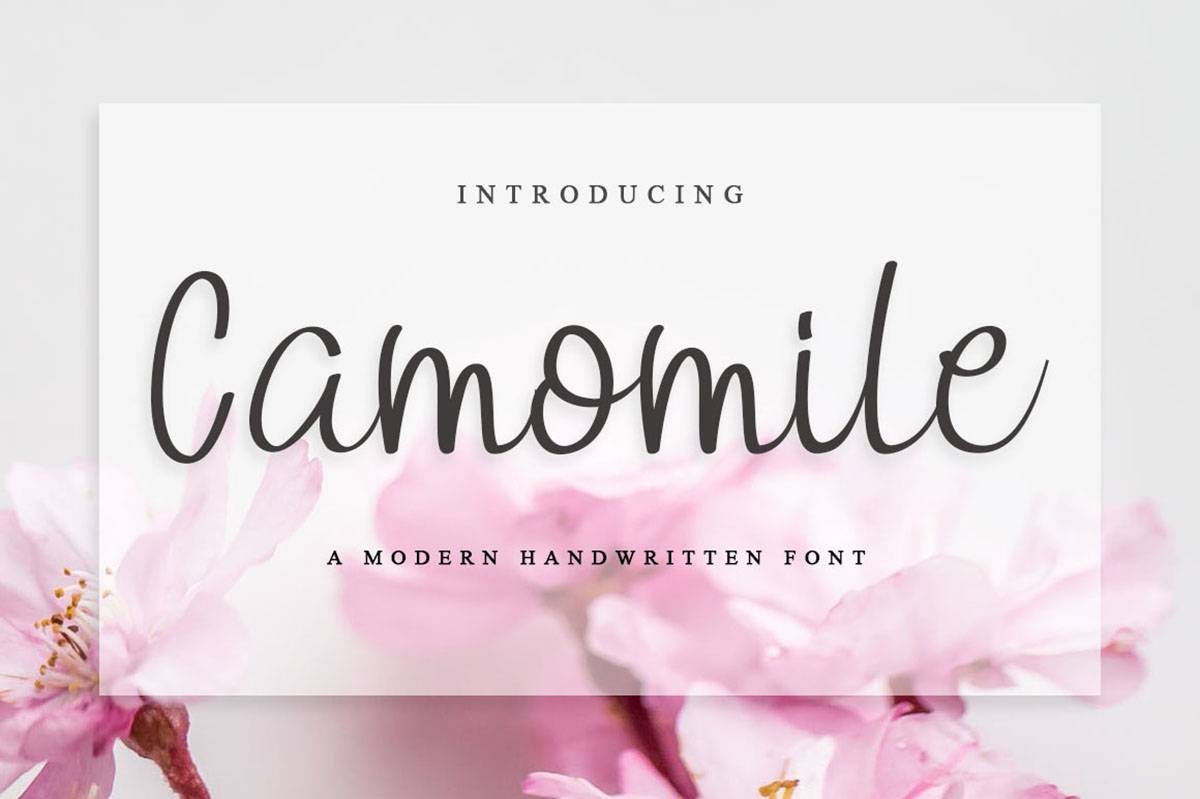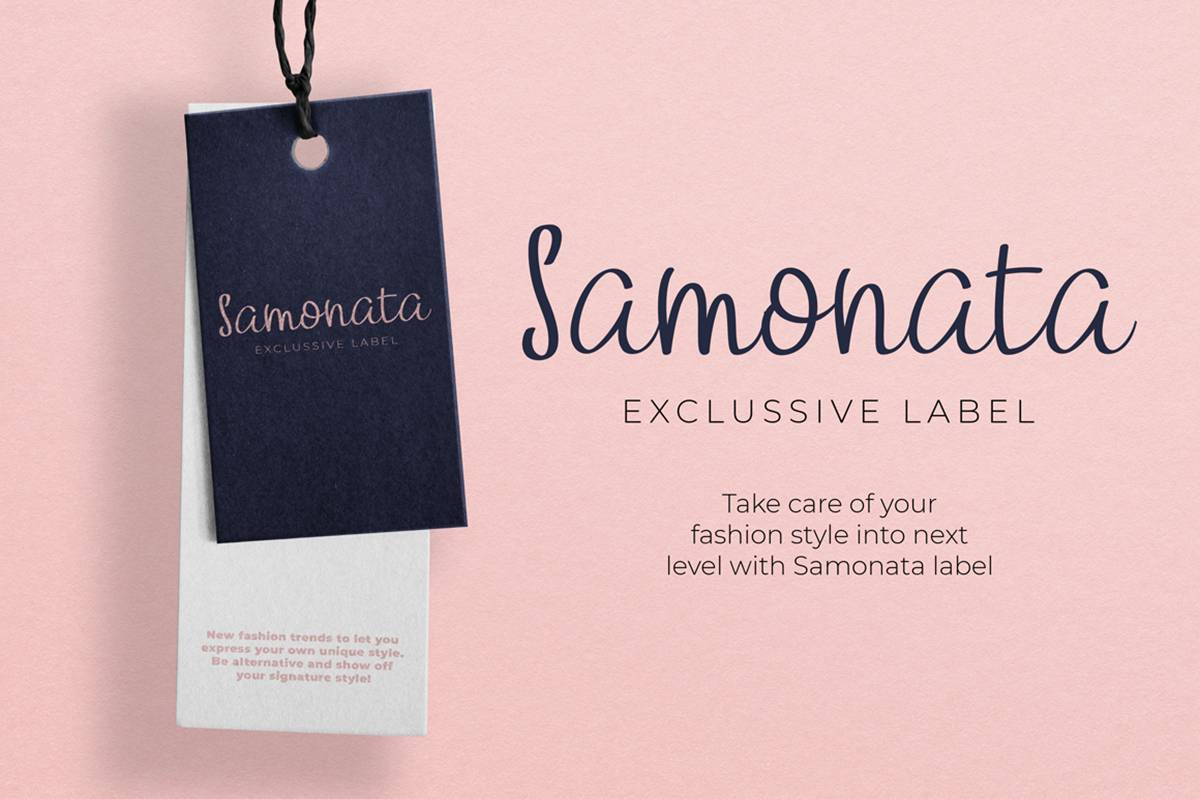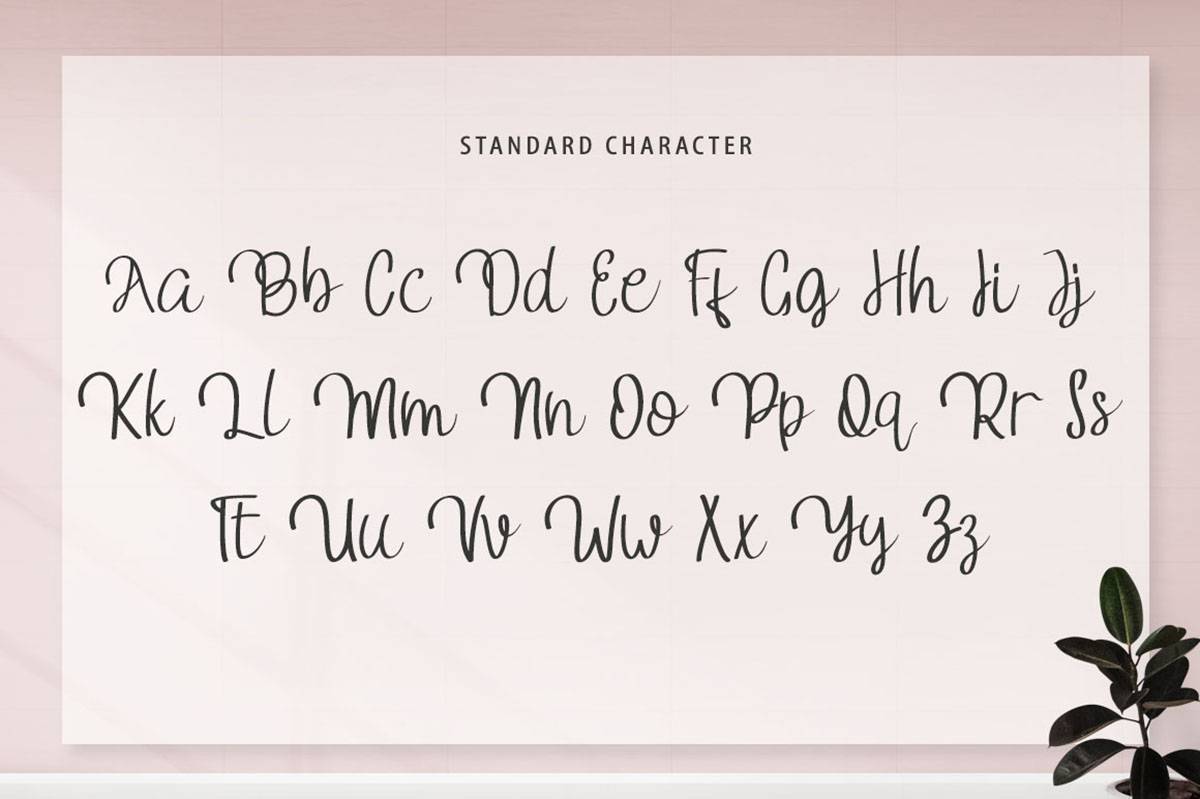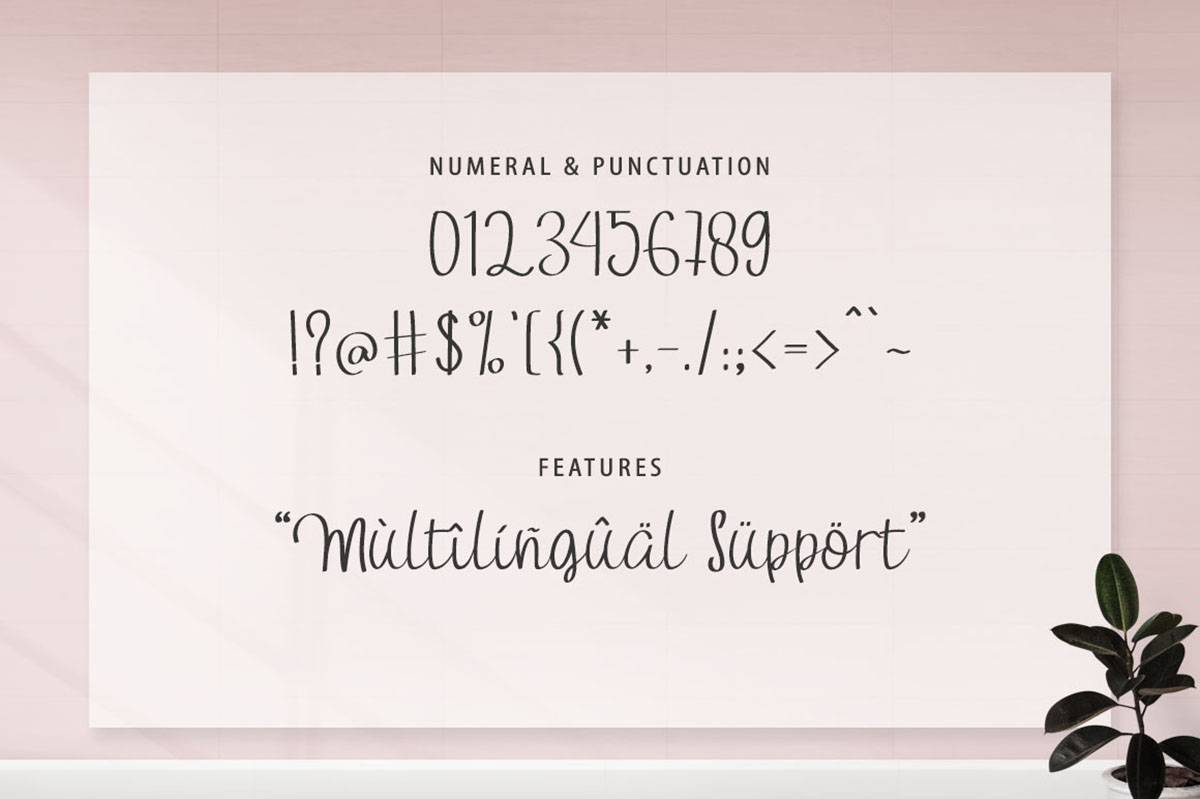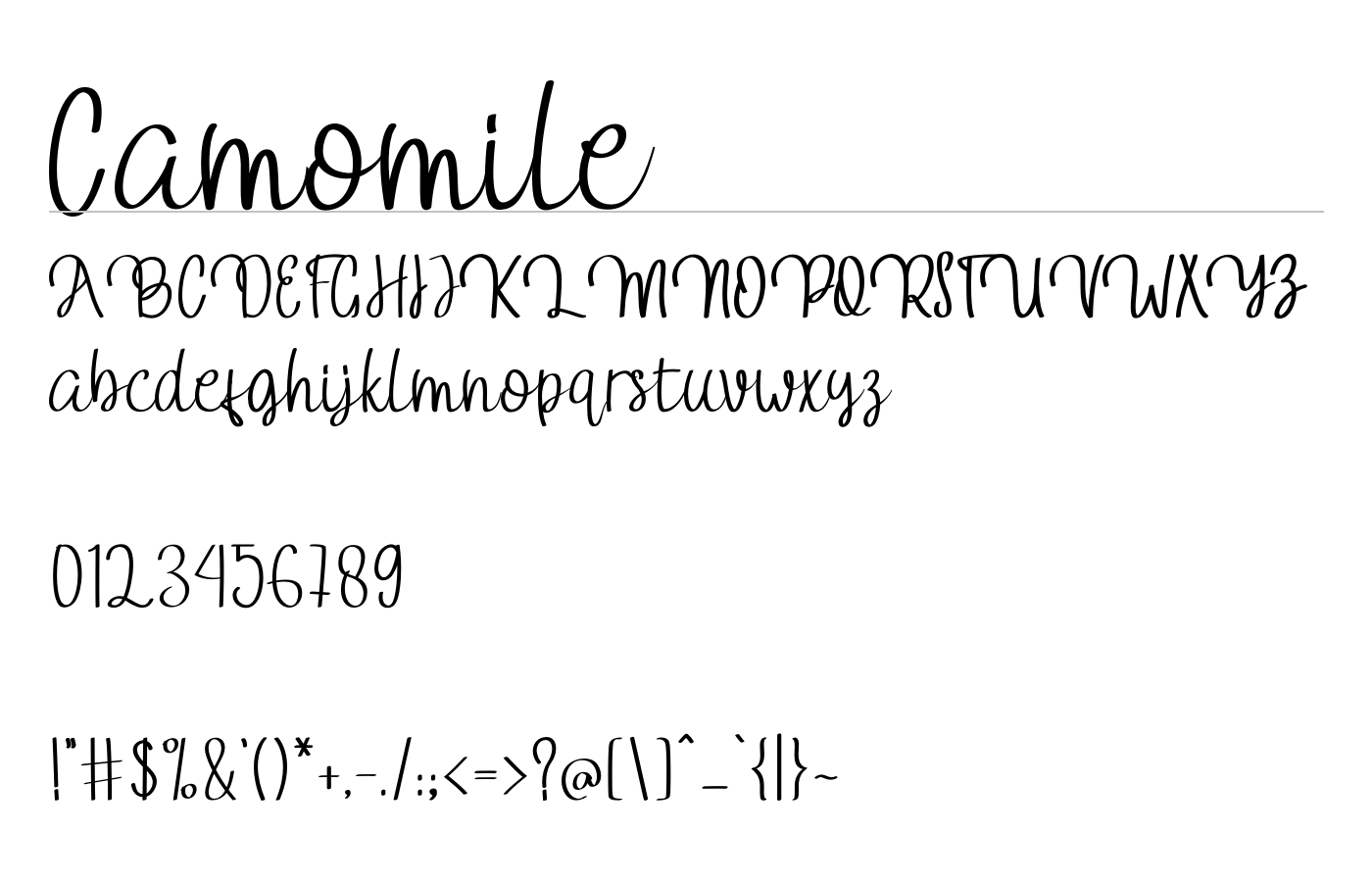
Camomile is a playful and elegant handwritten script font with a light weight and tall, narrow letterforms that create a refined yet casual feel. Its smooth, flowing strokes and unique character shapes add a friendly and personal touch, making it ideal for creative branding, invitations, and stylish editorial design where a warm, approachable mood is desired. This font works especially well in headlines or decorative text to bring charm and individuality to a project.
Camomile Font
About Camomile Font
| Font family | Camomile Font |